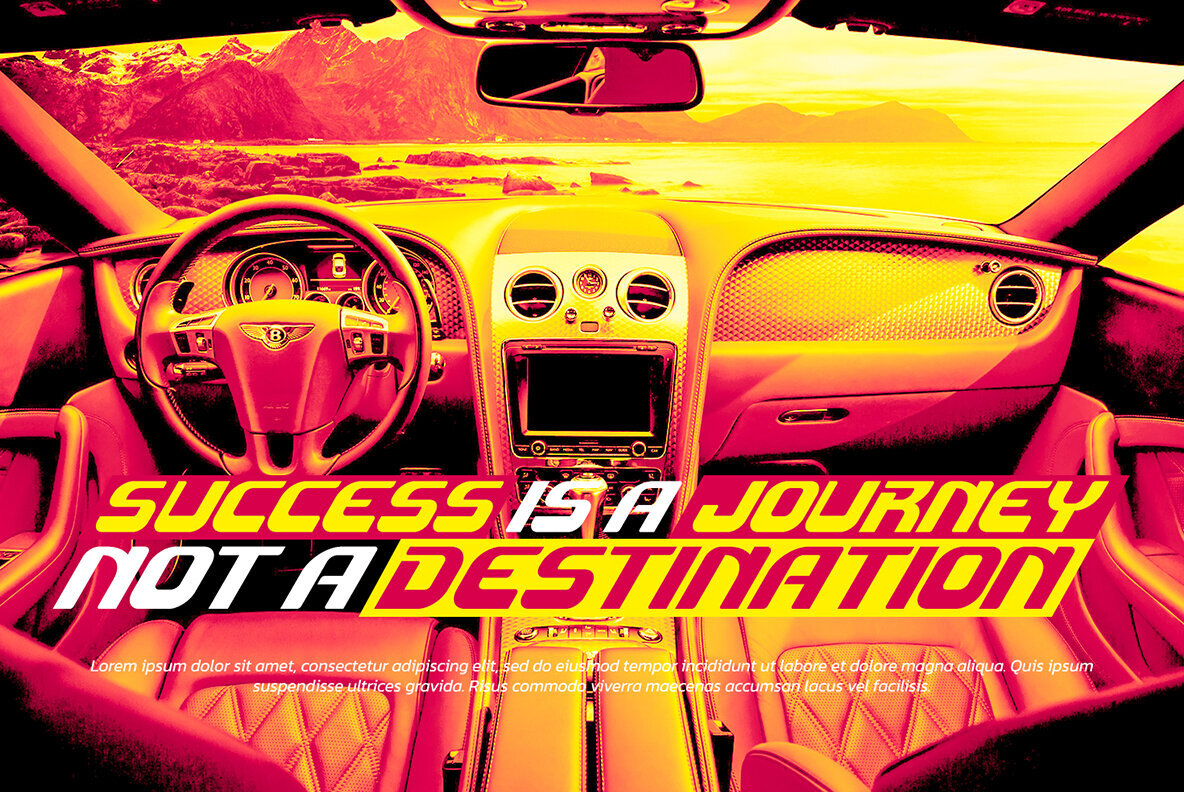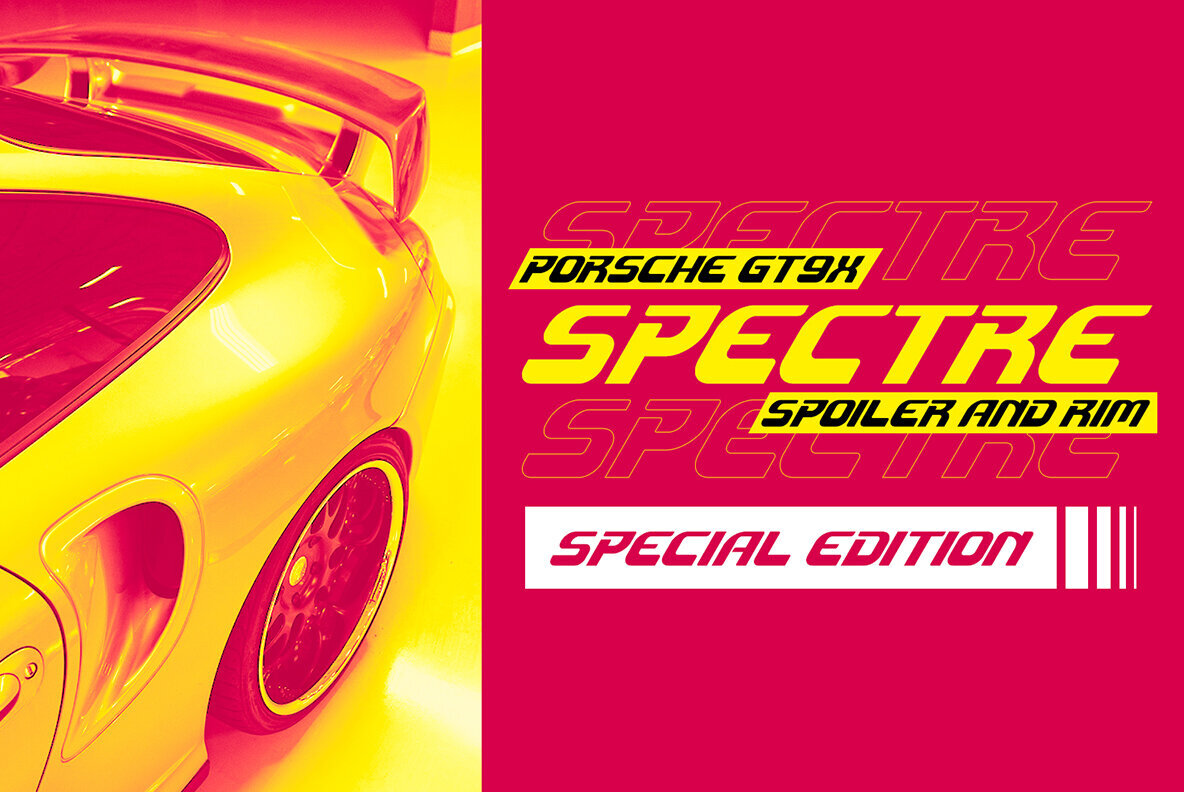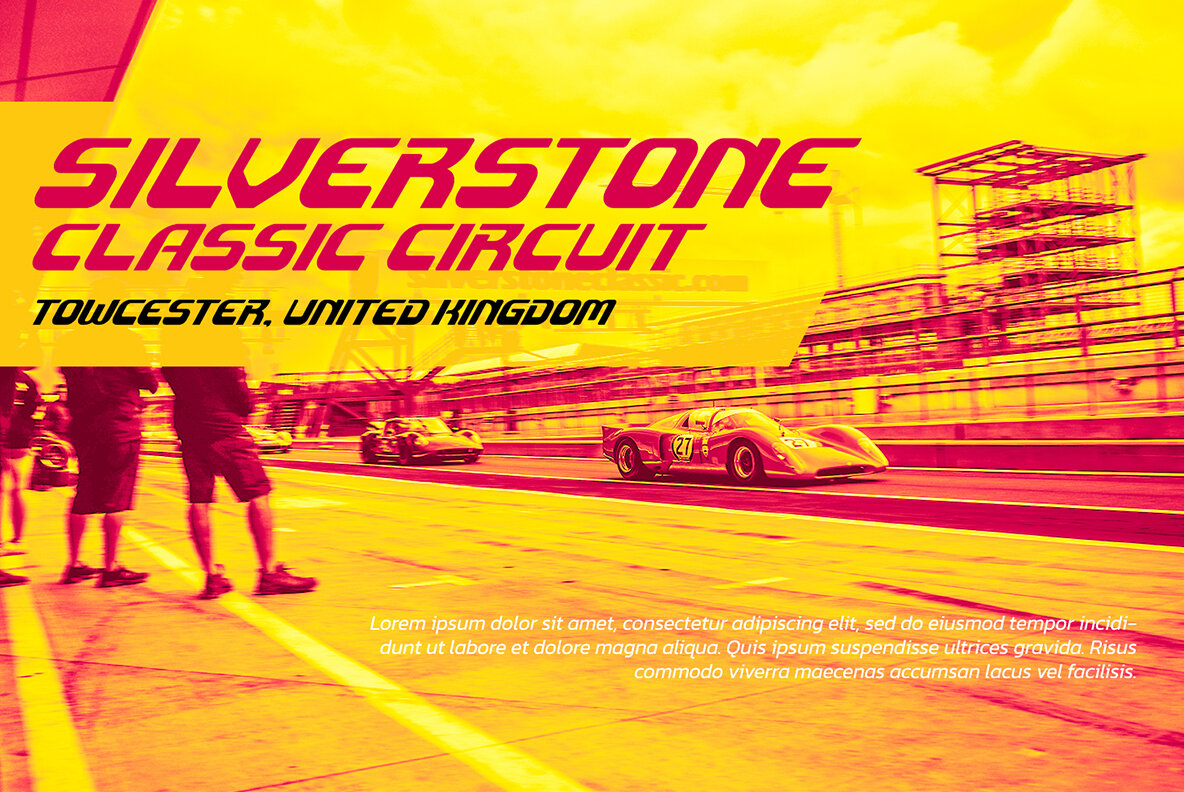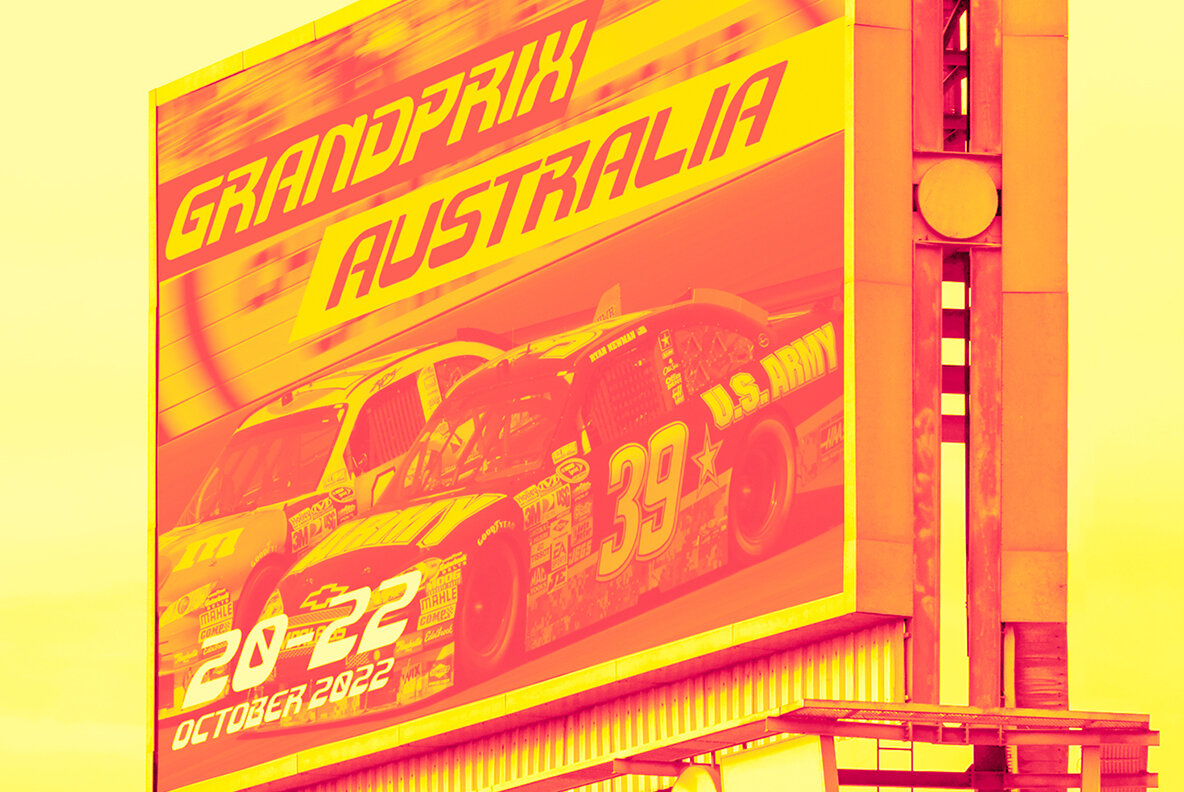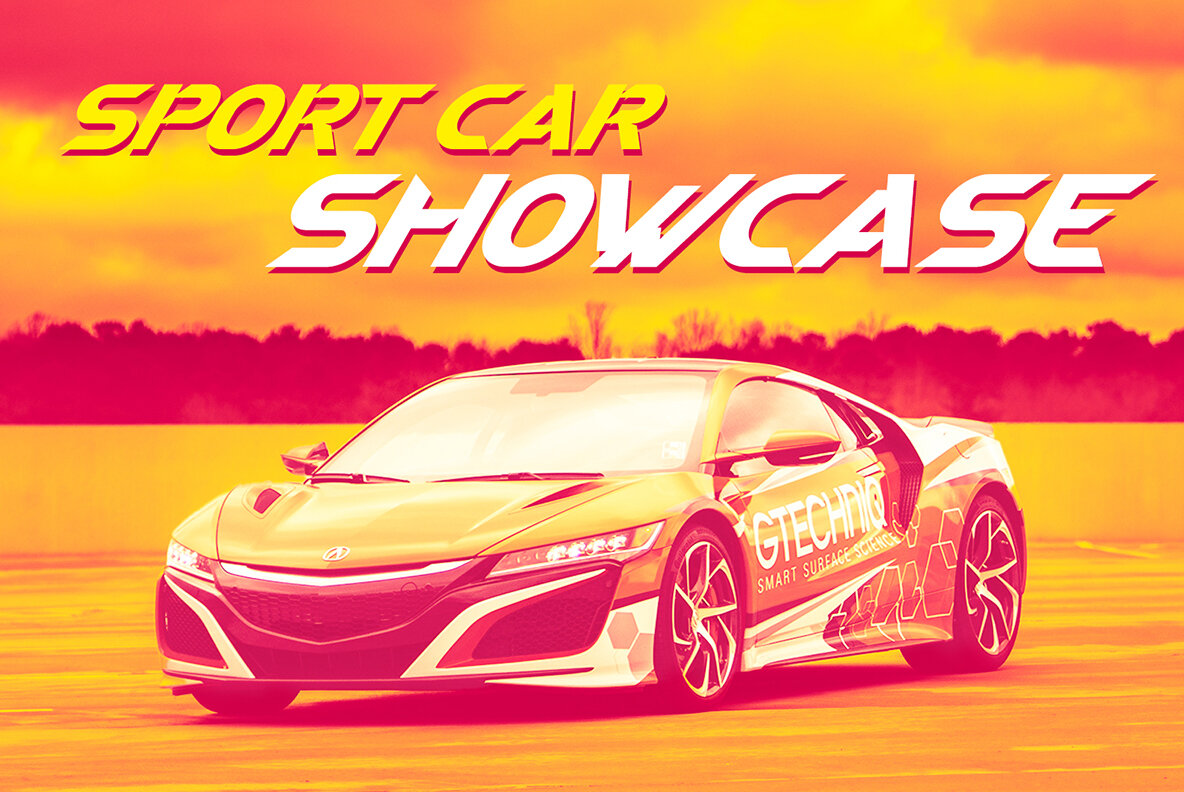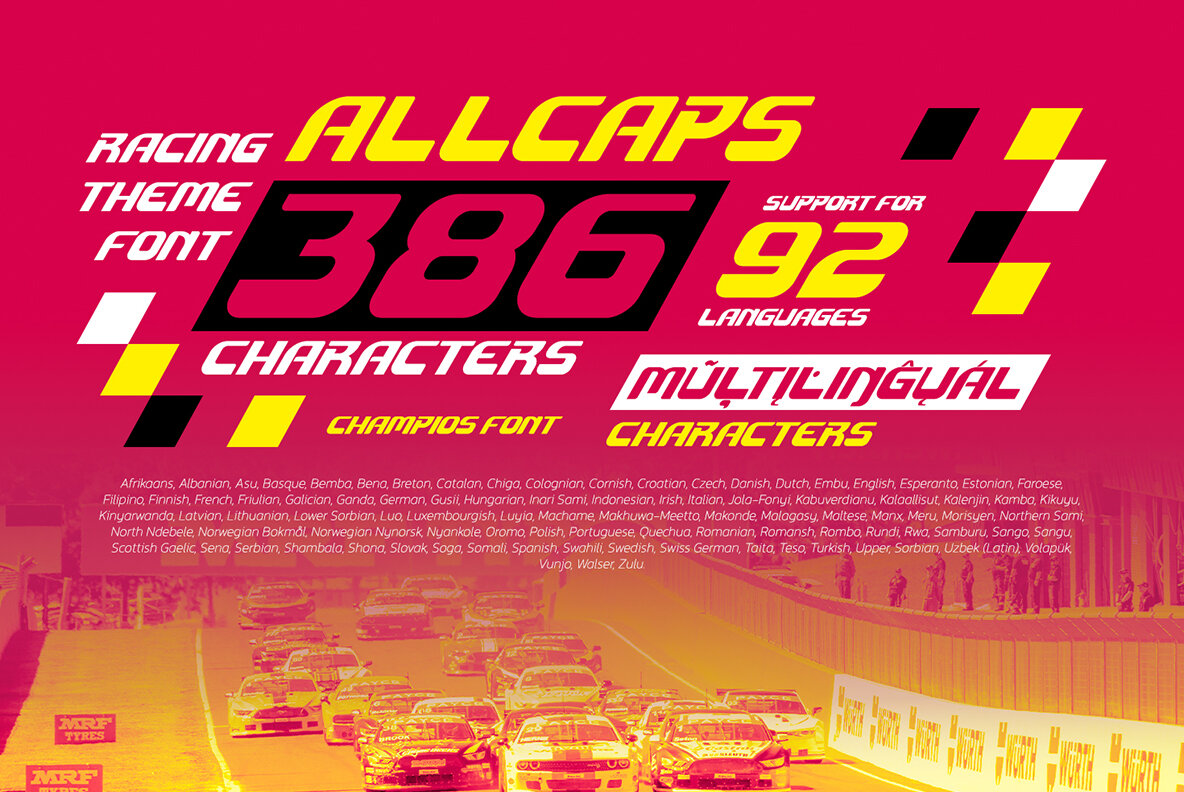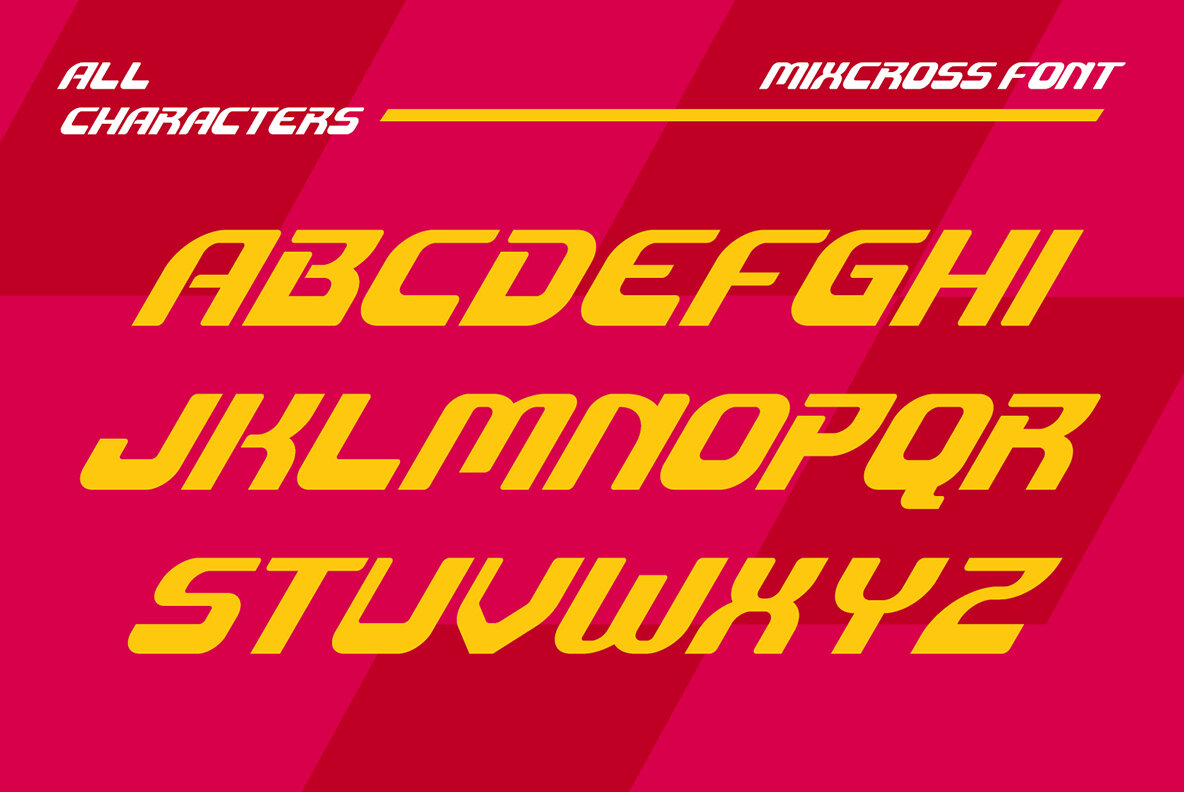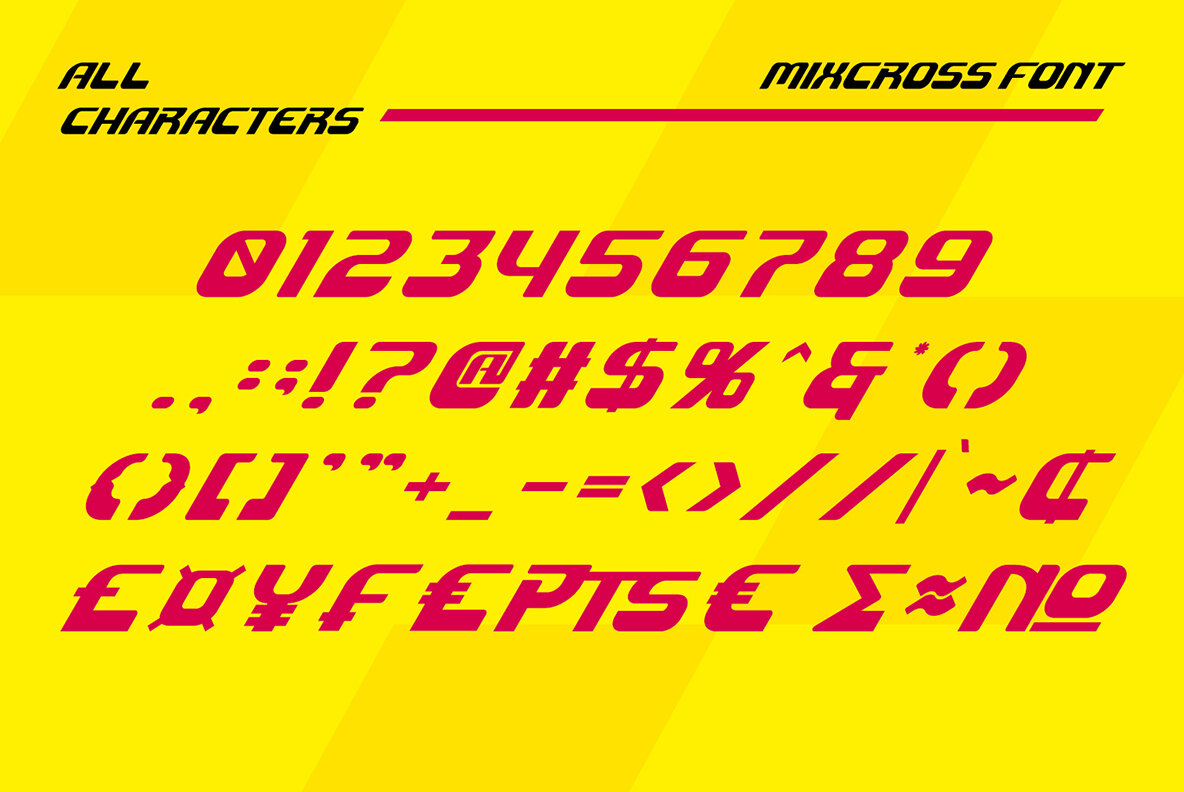
Mixcross Font
Mixcross Regular
Mixcross is a display font in the capital letters particularly created in a racing theme to express courage and power, which relates to the theme of racing. It is frequently applicable in 1) titles either to highlight the emphasizing phrases or to attract readers’ attention, and 2) large-sized texts owing to the unique sizes and shapes. Additionally, Mixcross provides interesting features to help designers improve their design products. Features: - Multilingual Supports - PUA Encoded - Numerals and Punctuations This font type works best for any design projects, for instance, posters, banners, logos, book covers, headings, printed products, merchandise, social media, and so on. Find out more ways to use this font by taking a look at the font preview. Thanks a lot for purchasing our font. Happy designing.